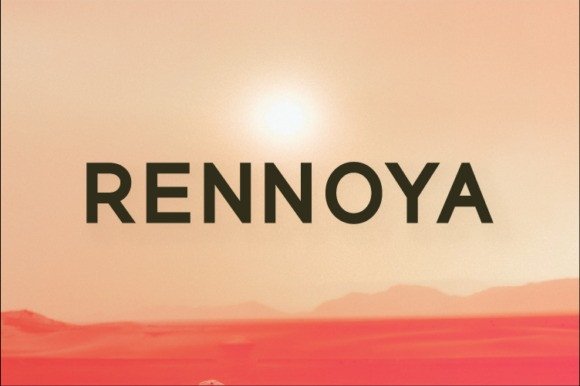
Rennoya Sans Serif Font
Rennoya Sans Serif Font is a blocky, nostalgic sans serif typeface inspired by old post offices and the love notes they carry. Made from font designer named A Christie. It’s a minimal and neat sans serif font. It can effortlessly be matched to an incredibly large set of projects, so add it to your creative ideas and notice how it makes them stand out!